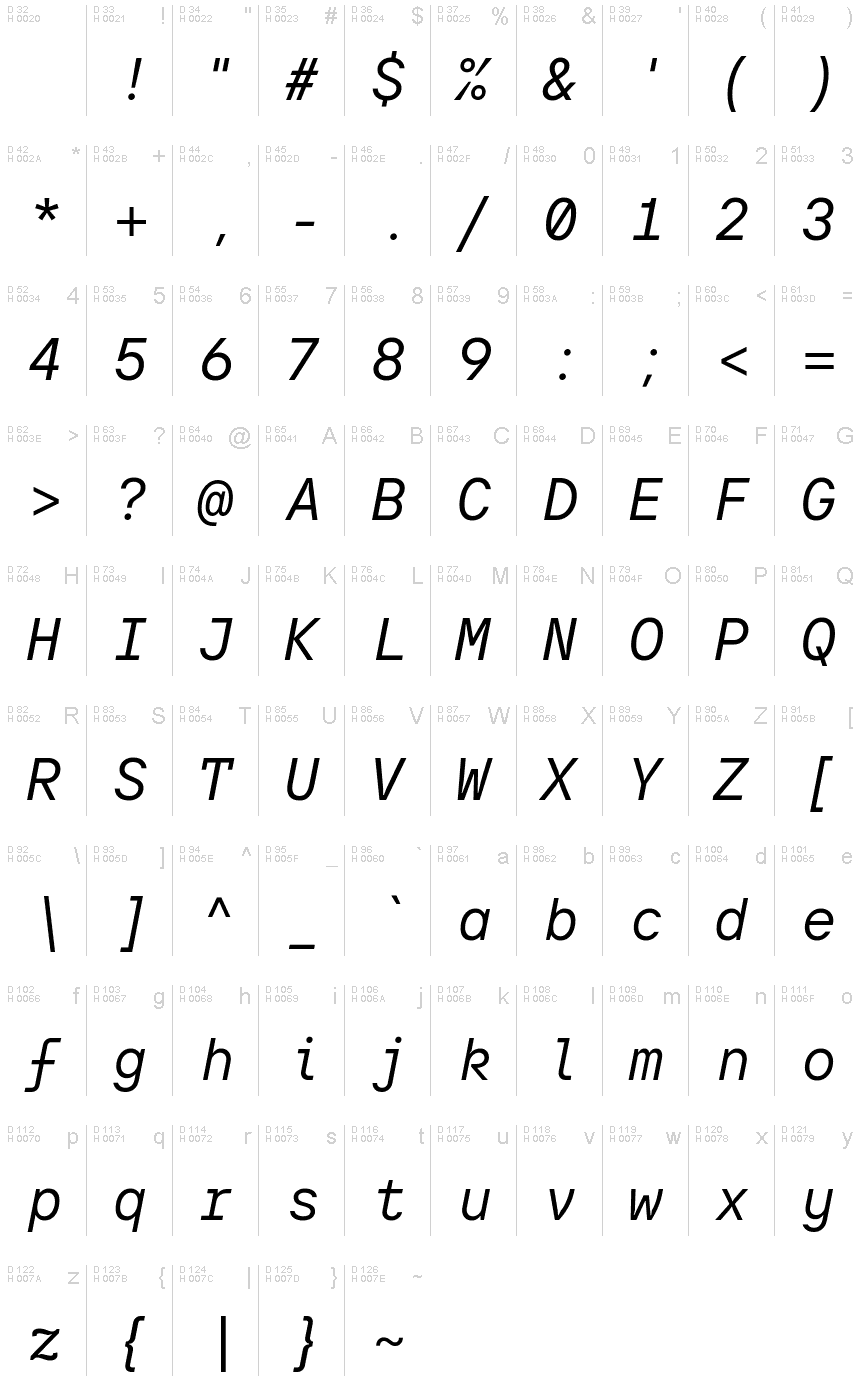
TT Interphases Pro Mono Italic is a versatile sans serif font by TypeType Foundry. With its semi-light weight and sleek design, this font is perfect for a wide range of creative and professional projects.
Its italic style adds an elegant touch to any design, making it suitable for fashion magazines, luxury branding, and sophisticated websites. Additionally, its clean lines and legibility make it an excellent choice for coding interfaces, technical manuals, and software documentation.
TT Interphases Pro Mono Italic is the ideal font for those seeking a modern yet refined typeface with a touch of sophistication.